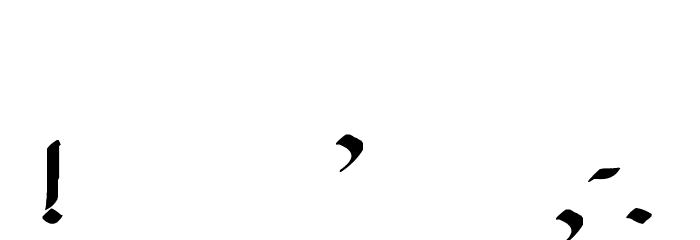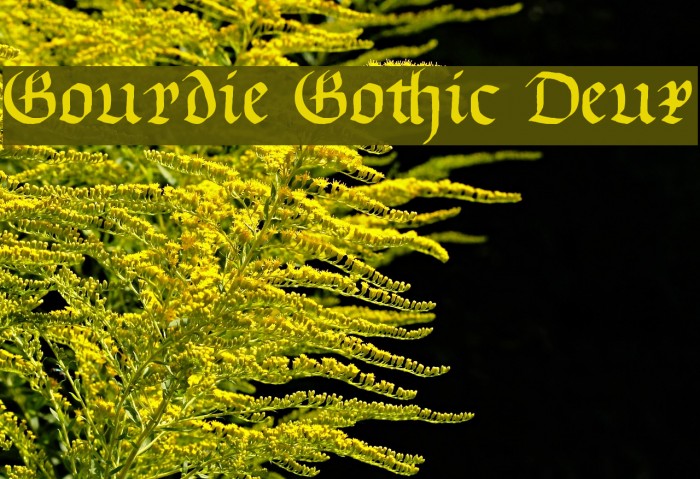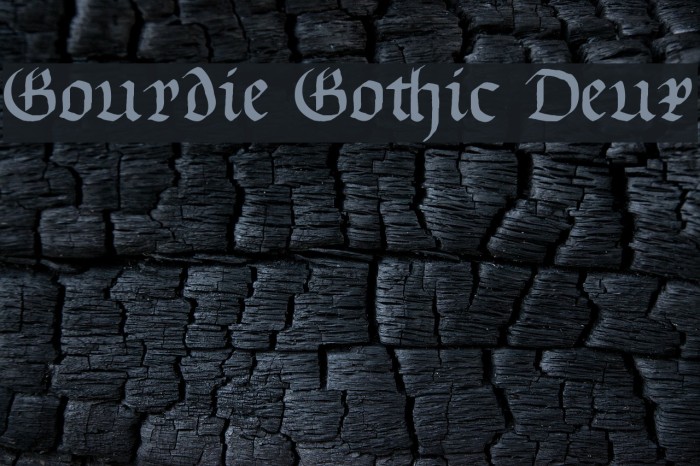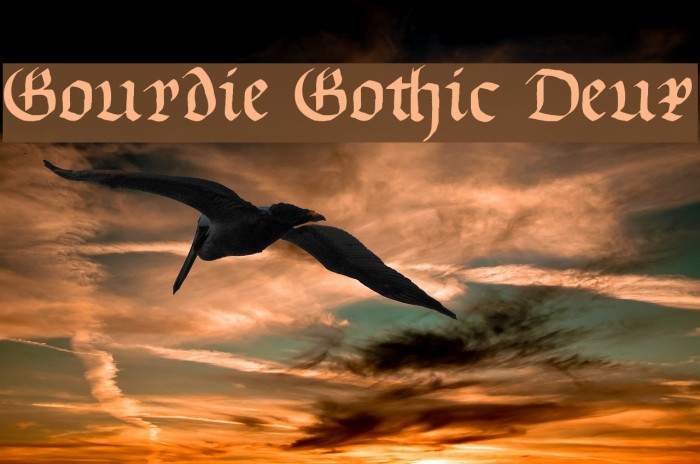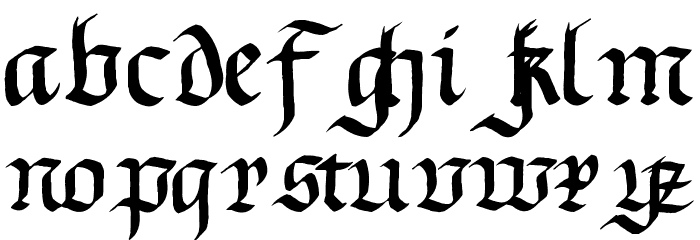
Gourdie Gothic Deux Font
Gourdie Gothic Deux Description
This font exhibits a classic blackletter style, characterized by its intricate and ornate letterforms. The uppercase and lowercase letters feature sharp, angular strokes with a distinct medieval flair. The characters are bold and dramatic, with a high contrast between thick and thin lines, giving them a striking appearance. The font maintains a consistent weight throughout, with a slightly condensed width that enhances its gothic aesthetic. The spacing between characters is tight, contributing to its dense and cohesive look. This style is reminiscent of traditional calligraphy, often associated with historical and formal contexts.
A bold, blackletter font with sharp, angular strokes and high contrast from Uncategorized fonts.
- Proposed Projects: Ideal for projects requiring a historical or medieval theme, such as book covers, posters, or event invitations.
- Character Spacing: Tight
- Overall Style: Vintage